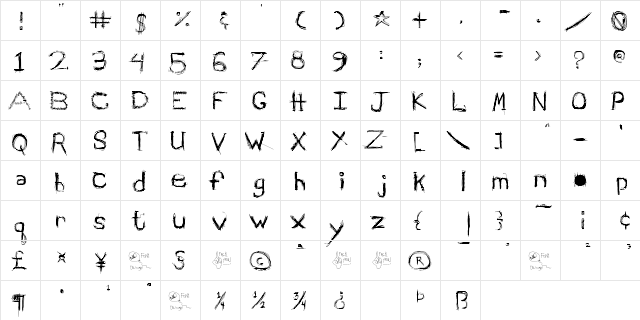
schizophrenia Queue Regular
Design Context for schizophrenia Queue Typeface
schizophrenia Queue is a composed and adaptable typeface that performs quietly and consistently across a wide range of design contexts.